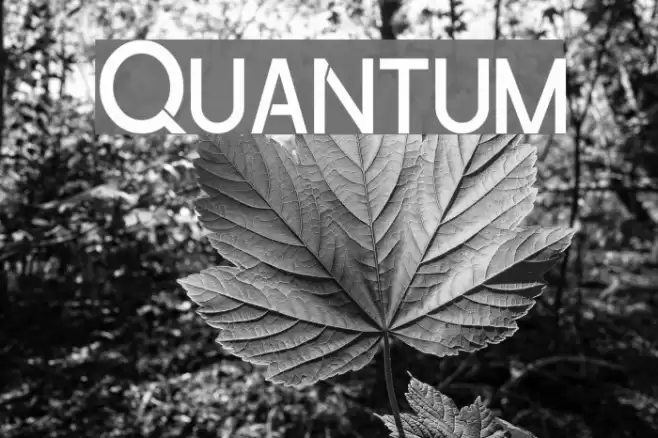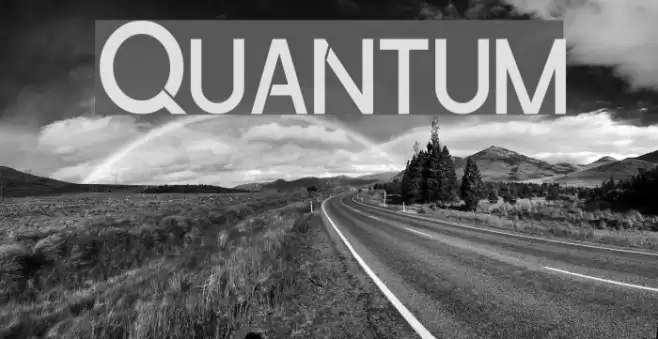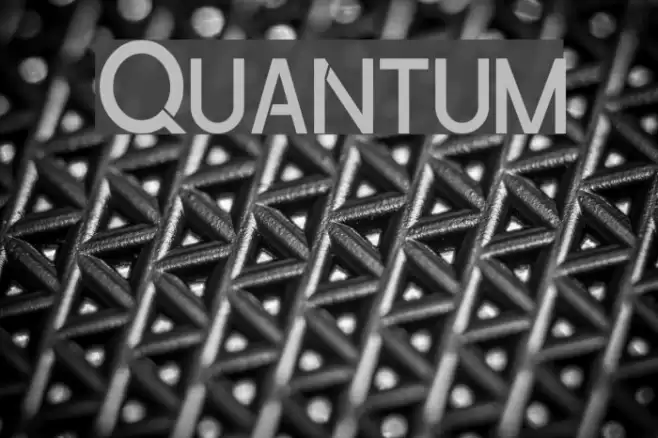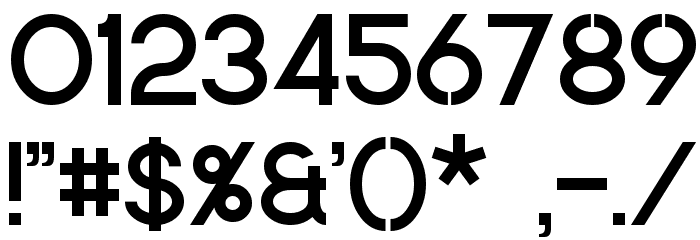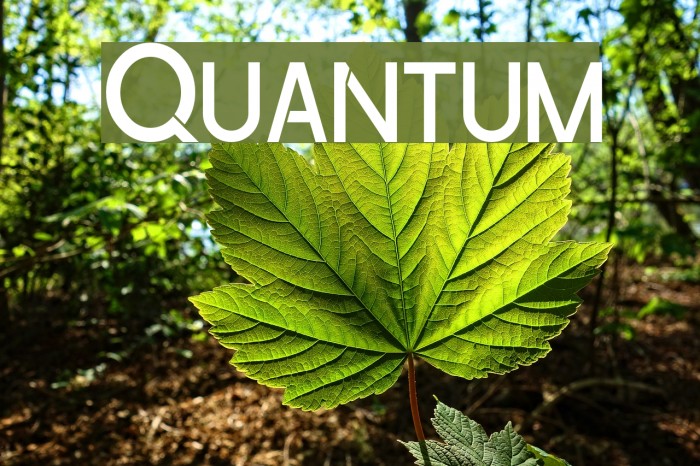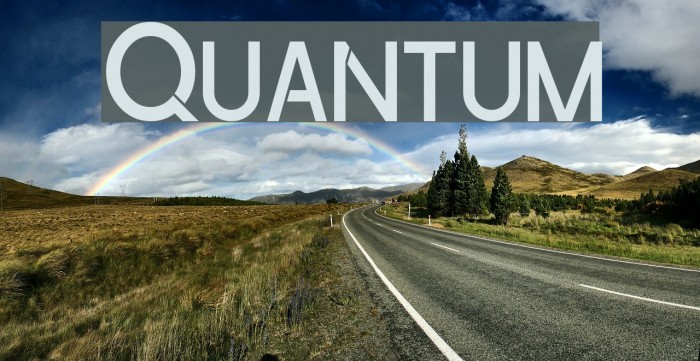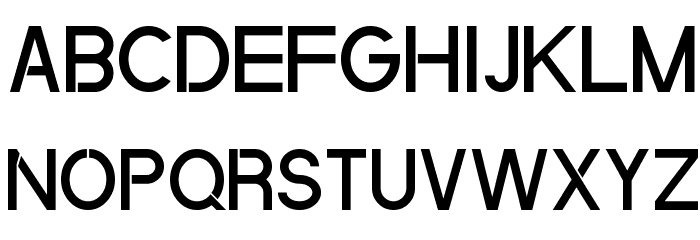
Quantum Font
Quantum Description
This font features a bold and modern sans-serif style with clean, geometric lines. The characters are uniformly structured, offering a sense of balance and clarity. The uppercase letters are prominent and assertive, while the lowercase letters maintain a consistent height and width, enhancing readability. The numerals are distinct and align perfectly with the overall design, making them ideal for digital displays. Special characters are crafted with precision, ensuring they complement the alphabet seamlessly. The font's simplicity and boldness make it versatile for various design applications.
A bold, modern sans-serif font with geometric lines and high readability from Uncategorized fonts.
- Proposed Projects: Ideal for branding, digital interfaces, signage, and editorial design.
- Use Case: Headlines, Logos, Digital Interfaces